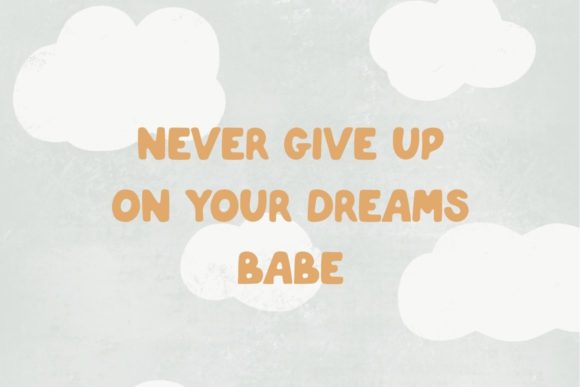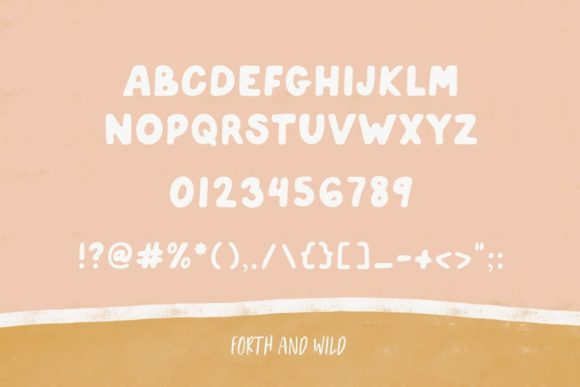
Peaches and Cream Font
db-ku.com - Script & Handwritten -- Peaches and Cream is a sweet, bold and paint brushed handwritten font. Whether you are using it for cartoon-related designs, children games, quotes, titles, brand names, book covers, posters, or just any creation that requires a touch of joy, this font is a great choice.